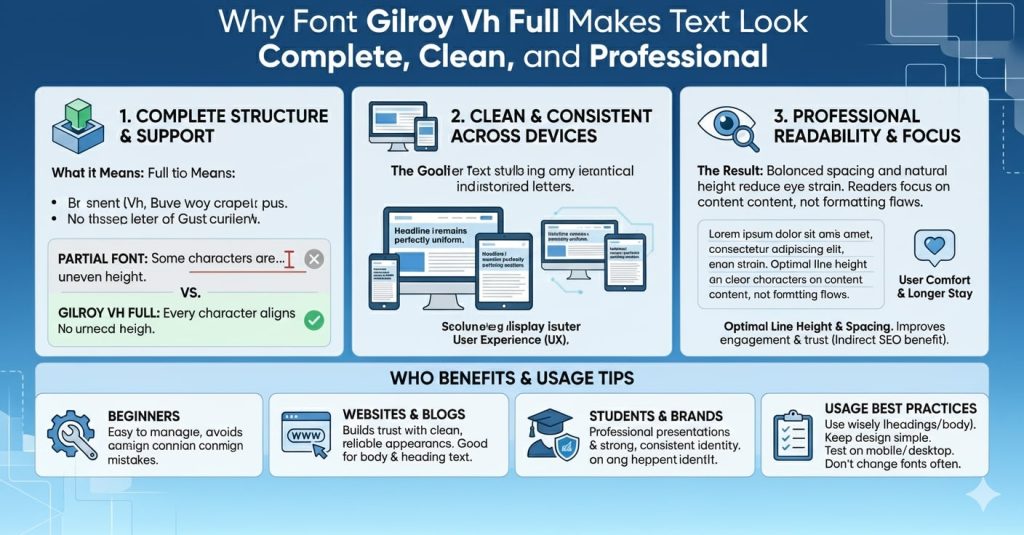
Why Font Gilroy Vh Full Makes Text Look Complete Clean And Professional
I think font gilroy vh full is something many people search but few truly understand. I thought it was just another font name. With time and practice I learned that font gilroy vh full usually means using the complete Gilroy font family with proper height and full character support. When I started using the full version my text looked more balanced. Reading felt smooth.
What Is Font Gilroy Vh Full
Font Gilroy vh full refers to using the full Gilroy font with complete height structure and full letter support. Vh often relates to view height in design. Full means all styles and characters are included. When we use the full version text looks consistent across screens.
Why People Search Font Gilroy Vh Full
Many people want clean designs. They want text that looks the same on all devices. That is why they search font gilroy vh full. They want full control over text size spacing and clarity.
My First Experience With Font Gilroy Vh Full
I remember when I used only partial font files. After switching to font gilroy vh full everything looked correct. Letters aligned properly. That experience taught me the value of complete fonts.
How Font Gilroy Vh Full Improves Readability
Readability depends on spacing and height. Font gilroy vh full keeps letters balanced. Lines do not feel cramped. Readers can focus on content easily.
Is Font Gilroy Vh Full Good For Beginners
Yes beginners can use font gilroy vh fully easily. It removes many design problems. If you are new this font helps you avoid mistakes.
Font Gilroy Vh Full For Websites
Websites need consistency. Font gilroy vh full ensures text looks the same on mobile tablet and desktop. This improves user experience.
Font Gilroy Vh Full And User Experience
Good user experience comes from clarity. When text is clear users stay longer. Font gilroy vh full helps with that.
Does Font Gilroy Vh Full Help SEO
Fonts do not directly rank pages. But good readability keeps users engaged. Engagement helps SEO indirectly.
Font Gilroy Vh Full For Students
Students can use this font for projects and presentations. Text looks neat and professional. Teachers can read easily.
Font Gilroy Vh Full For Bloggers
Bloggers need trust. Clean fonts build trust. Font gilroy vh full makes blogs look serious and reliable.
Difference Between Partial And Full Font Use
Full fonts include everything. Font gilroy vh fully avoids display issues.
How To Use Font Gilroy Vh Full Correctly
We should use it wisely.
Use it for body text Use it for headings Keep design simple
This approach works best.
Common Problems Font Gilroy Vh Full Solves
Text cut off issue Uneven line height Poor screen scaling
Using a full font fixes these problems.
How To Test Font Gilroy Vh Full
I always test fonts.
Check screen view Check mobile view Check spacing
Testing saves time.
Font Gilroy Vh Full For Mobile Reading
Mobile screens are small. Font gilroy vh full keeps text readable even on small devices.
Why Full Font Height Matters
Full height keeps letters natural. Font gilroy vh full keeps balance.
Should We Use Font Gilroy Vh Full Everywhere
We should use it where clarity is needed. Balance is important in design.
How Often We Should Change Fonts
We should not change fonts often. Consistency builds identity and trust.
Font Gilroy Vh Full And Brand Identity
Brands need consistent text. Using a full font helps build a strong identity.
Why I Recommend Font Gilroy Vh Full
From my experience it solves many layout issues. It improves readability and design quality.
How Font Gilroy Vh Full Helps Design Beginners
Beginners often struggle with spacing. This font removes that struggle.
Can Font Gilroy Vh Full Reduce Eye Strain
Yes, clear spacing reduces eye strain. Readers can read longer without fatigue.
Font Gilroy Vh Full And Modern Design
Modern design focuses on clarity. Font gilroy vh fully matches modern needs.
FAQs
What is font gilroy vh full?
Font gilroy vh full means using the complete Gilroy font with full height and character support.
Is font gilroy vh full good for websites?
Yes it works well across all screen sizes.
Can beginners use font gilroy vh full?
Yes it is beginner friendly and easy to manage.
Does font gilroy vh fully improve readability?
Yes it keeps spacing and height balanced.
Should we use the font gilroy vh full for blogs?
Yes it helps blogs look clean and professional.
Conclusion
I think font gilroy vh full is a smart choice for anyone who wants clean, readable and professional text. From my personal experience I learned that using full fonts avoids many design problems. This font improves clarity, consistency and user comfort. If you want your content to look better and solve layout issues you should consider using font gilroy vh full. We should always focus on user experience. When text is easy to read users stay longer and that helps content perform better.